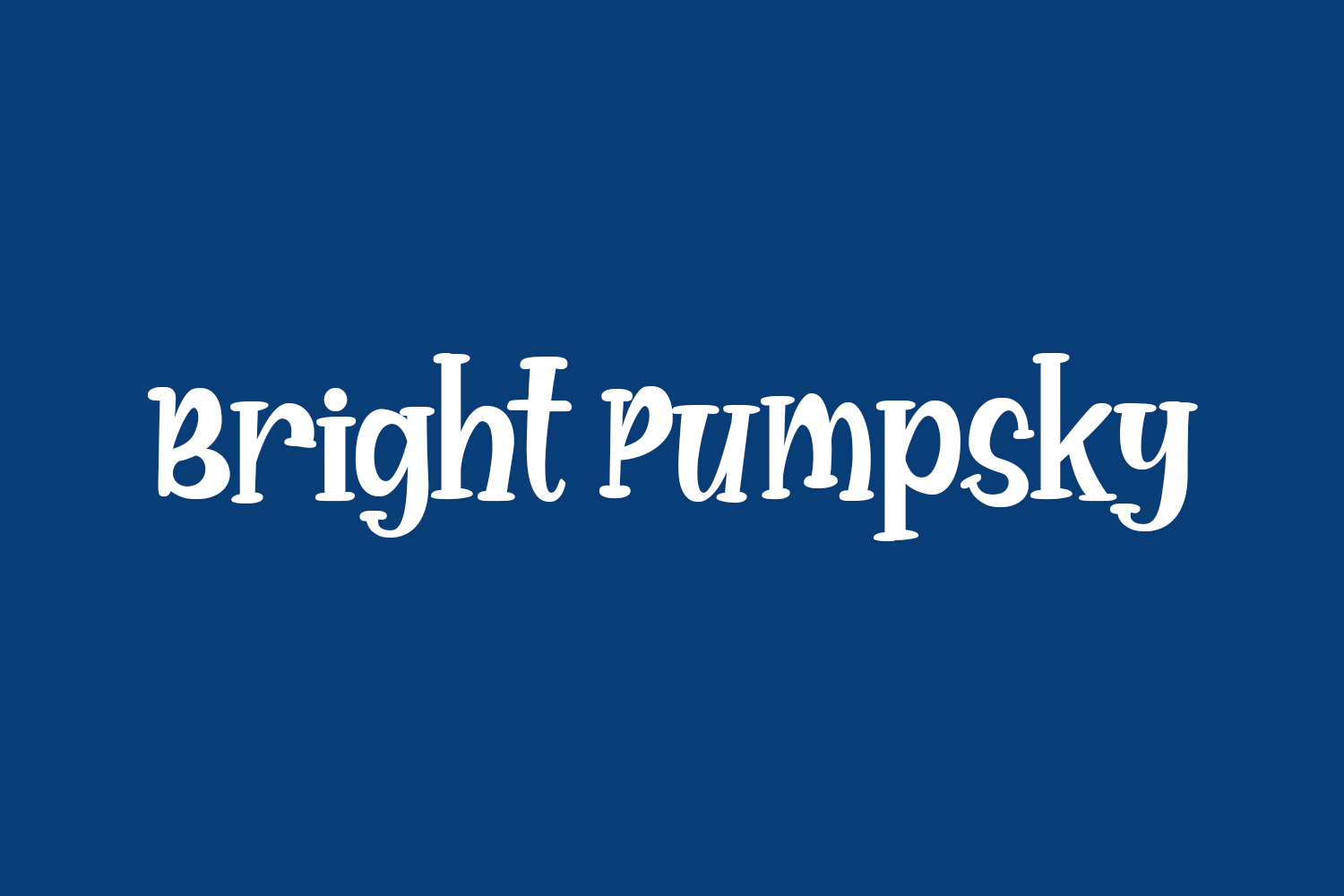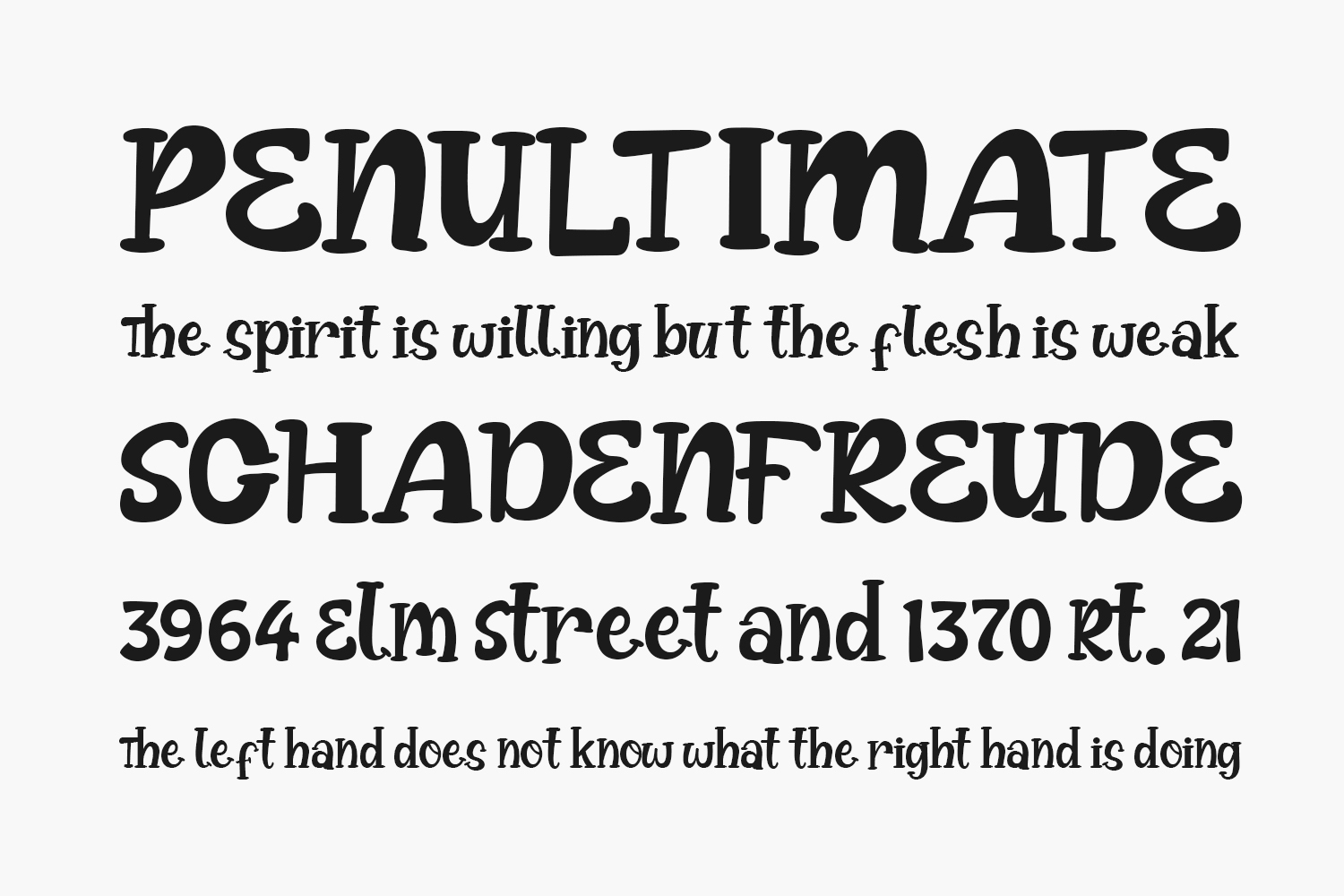
Bright Pumpsky Free Font is a quirky and whimsical serif font. It can be used for various purposes such as logos, invitations, headings, t-shirts, letterhead, signage, labels, news, posters, badges, and so much more. Bright Pumpsky Free Font was designed by Aksoro 99 and is free for personal use only. Please purchase the full version for commercial use.